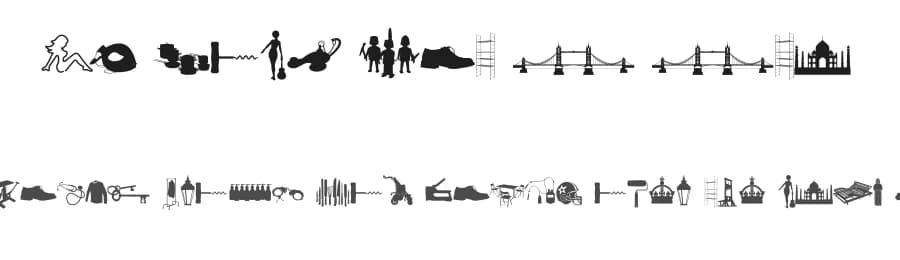
About WC Sold Out B Bta Font
WC Sold Out B Bta is a dingbat font designed by WC Fonts / Atypeek. It includes 245 glyphs, a regular weight, TTF (TrueType) format, and 217 languages. WC Sold Out B Bta is free to download; check the license details on this page before commercial use. Dingbat fonts like WC Sold Out B Bta work best for icons, ornaments, bullet points, and decorative accents.
WC Sold Out B Bta Font is a versatile dingbats font that works for both headings and body text. Pair it with a contrasting sans-serif or serif font to add visual interest and a clear distinction between titles and body copy.